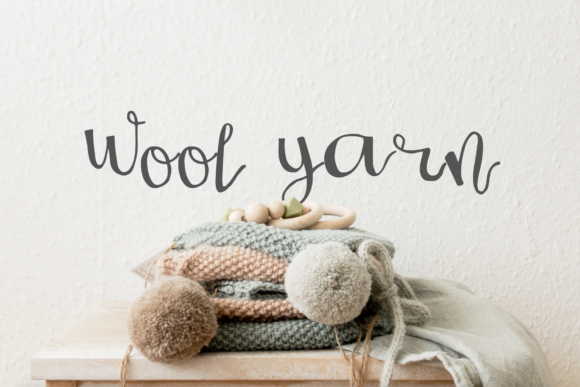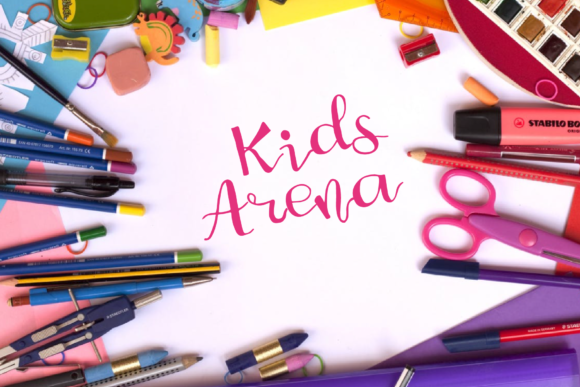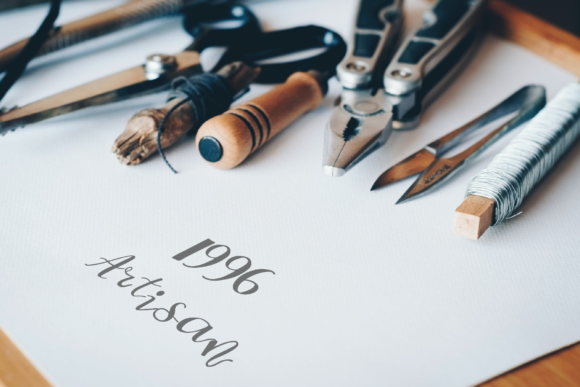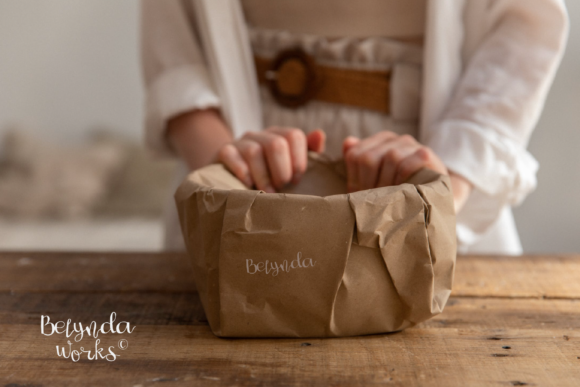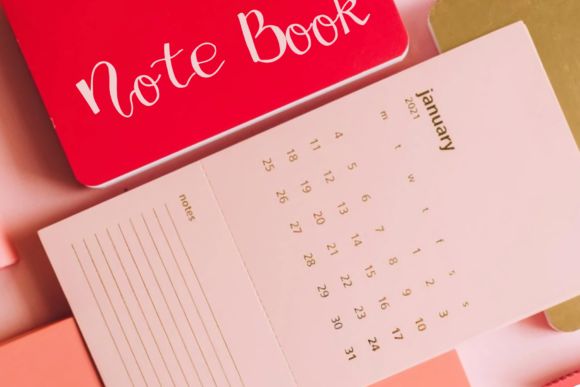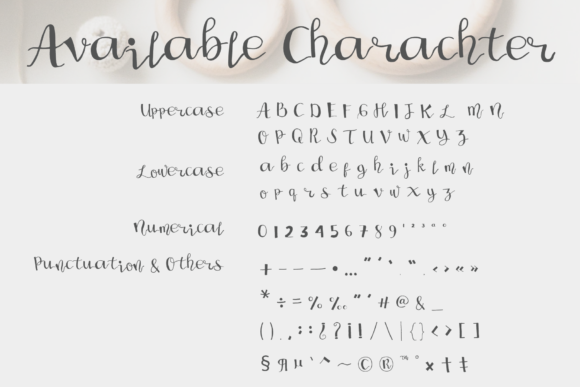
Craftsman Work Font: Elevate Your Designs with a Whimsical Script Font
Are you a designer or crafter looking for a unique and versatile font to add to your collection? Look no further than Craftsman Work, a whimsical script font with a relaxed theme that’s sure to elevate any creation. With its lovely style and adaptability, Craftsman Work is an incredibly valuable asset to any font library.
The Characteristics of Craftsman Work Font
Craftsman Work is a script font that exudes a sense of casual elegance, making it perfect for a wide range of design projects. Its relaxed theme gives it a friendly and approachable feel, while its whimsical touches add a touch of playfulness. The font features:
- Unique lettering style: Craftsman Work boasts a distinctive lettering style that’s both elegant and laid-back.
- Whimsical flourishes: The font includes delightful flourishes that add a touch of personality to any text.
- High readability: Despite its ornate style, Craftsman Work remains highly readable, even at smaller font sizes.
The Benefits of Using Craftsman Work Font
Craftsman Work is more than just a pretty font – it’s a versatile tool that can enhance any design project. Here are just a few benefits of using Craftsman Work:
- Elevate your brand: Add a touch of sophistication and whimsy to your brand’s visual identity with Craftsman Work.
- Perfect for crafts and DIY projects: The font’s relaxed, handmade feel makes it ideal for crafts and DIY projects, such as woodworking, sewing, or baking.
- Great for invitations and events: Craftsman Work is perfect for creating beautiful invitations, wedding stationery, or event branding.
- Adaptable to any theme: Whether you’re working on a project related to lifestyle, fashion, or home decor, Craftsman Work will fit right in.
How to Use Craftsman Work Font in Your Designs
- Pair with complementary fonts: Combine Craftsman Work with clean, modern fonts for a striking contrast.
- Experiment with colors: Try pairing the font with bold, bright colors or soft pastels to create a unique look.
- Play with textures and patterns: Add depth and interest to your design by incorporating textures or patterns that complement the font’s whimsical style.
In conclusion, Craftsman Work is a versatile and charming script font that’s sure to become a valuable addition to any designer’s or crafter’s font library. Its unique blend of whimsy and elegance makes it perfect for a wide range of projects, from branding and invitations to crafts and DIY projects. With its high readability and adaptability, Craftsman Work is the perfect choice for anyone looking to elevate their designs and add a touch of personality to their creations.